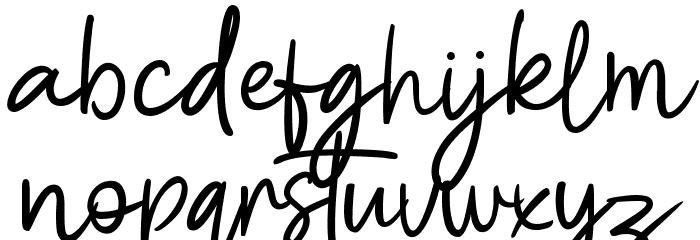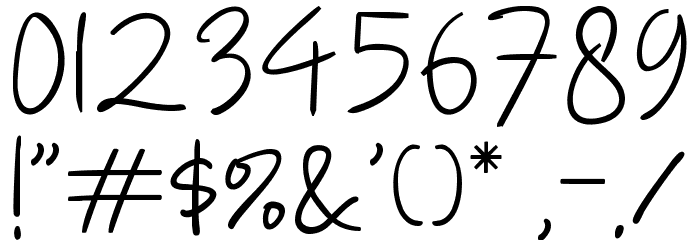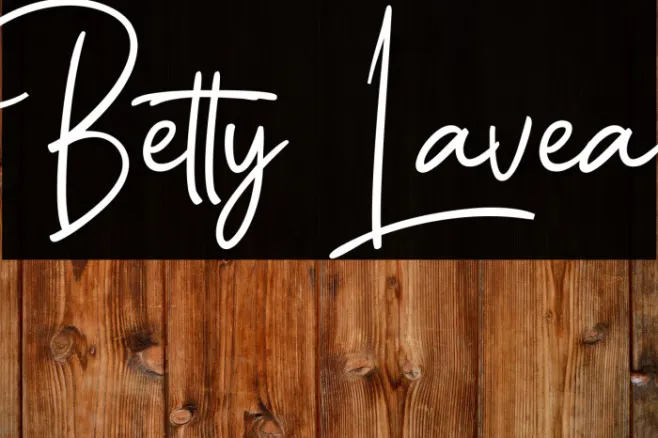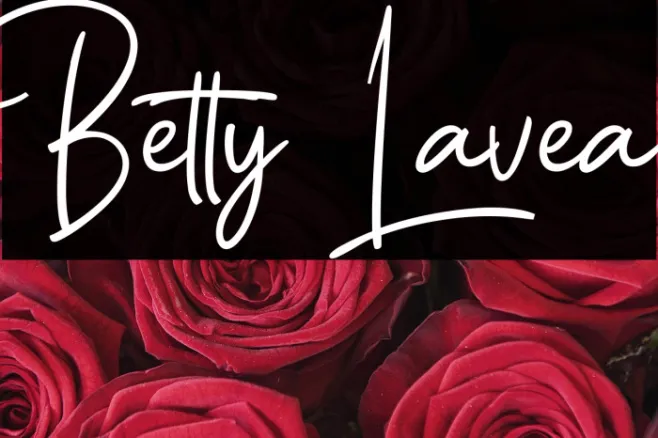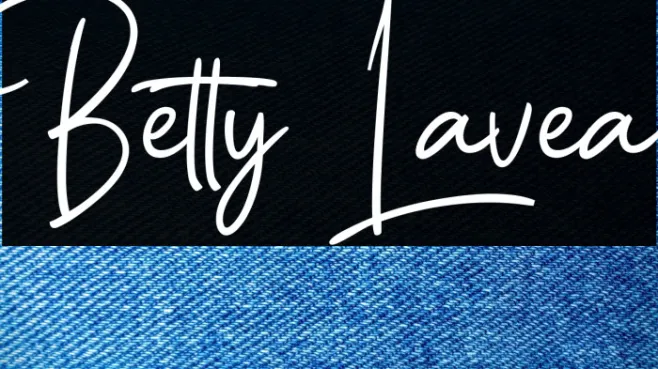
Betty Lavea Font
This font exudes a casual and playful handwritten style, characterized by its fluid and dynamic strokes. The uppercase letters are slightly more structured, while the lowercase letters display a more freeform, cursive appearance. The numerals and special characters maintain the same lively and informal aesthetic, making the font versatile for various creative applications. The overall design is approachable and friendly, with a touch of elegance that adds a personal feel to any project.
A playful and casual handwritten font with fluid strokes.
- Proposed Projects: Ideal for greeting cards, invitations, personal branding, and creative projects that require a personal touch.
- Overall Style: Casual
- Use Case: Logos, Invitations, Greeting Cards